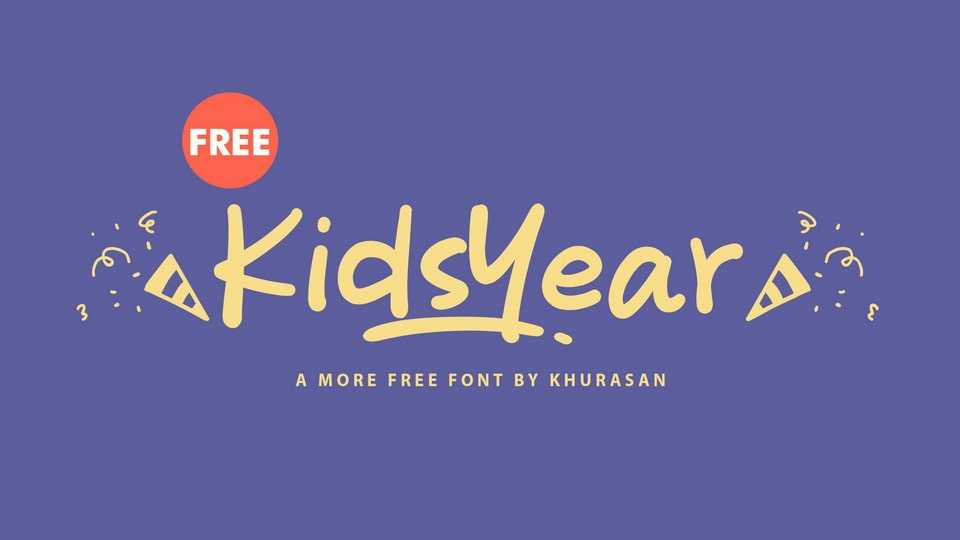
Download Kids Year font, a handwritten typeface that captures the spontaneous energy of doodles and scribbles. Each character is a delightful dance of ink, adding a touch of whimsy to your designs.